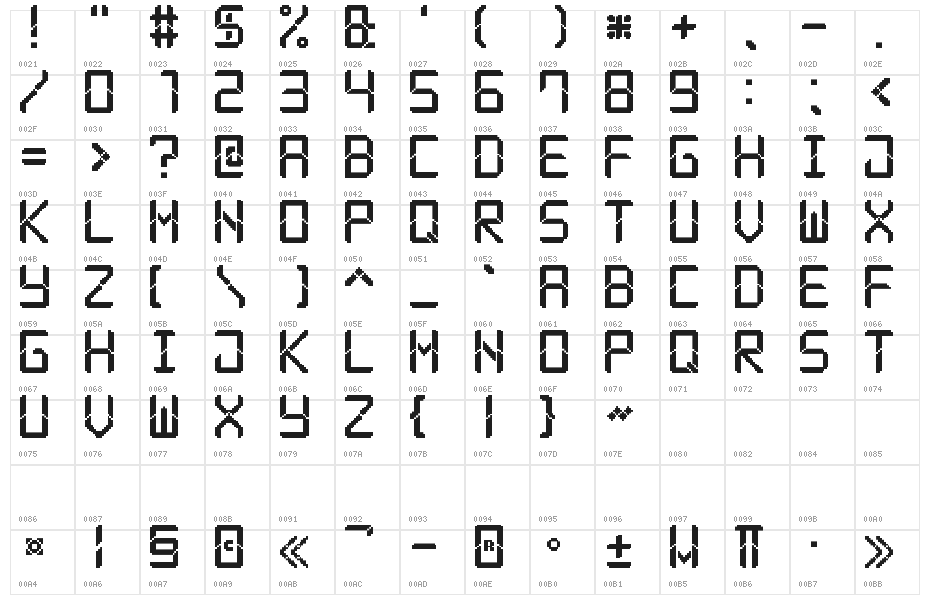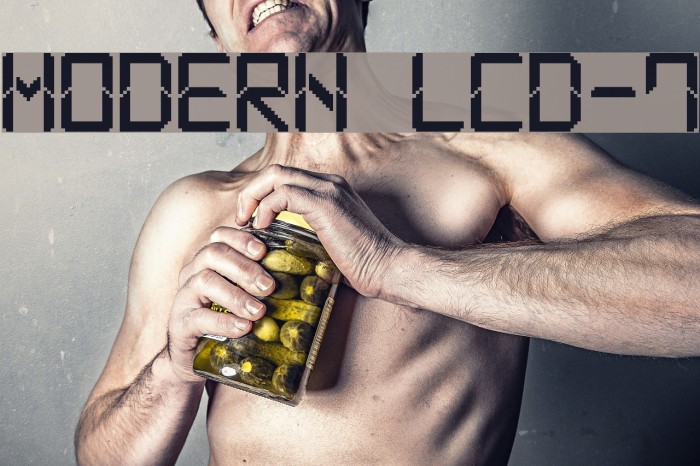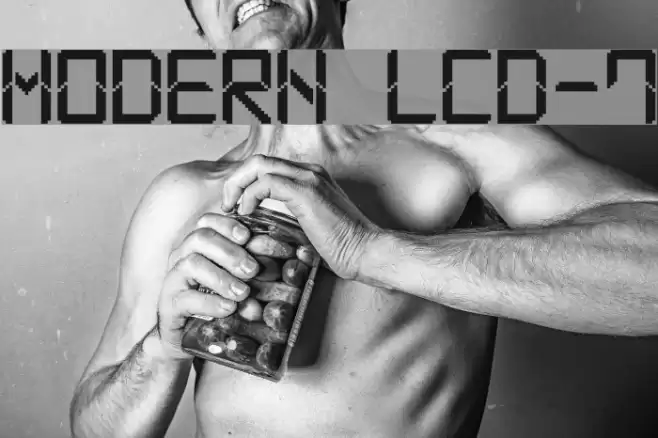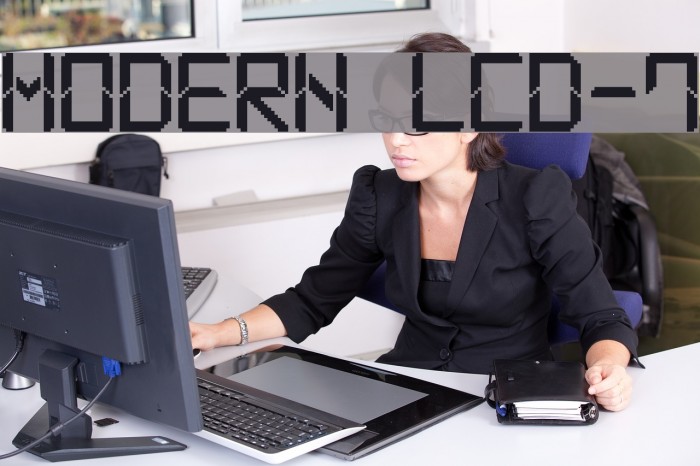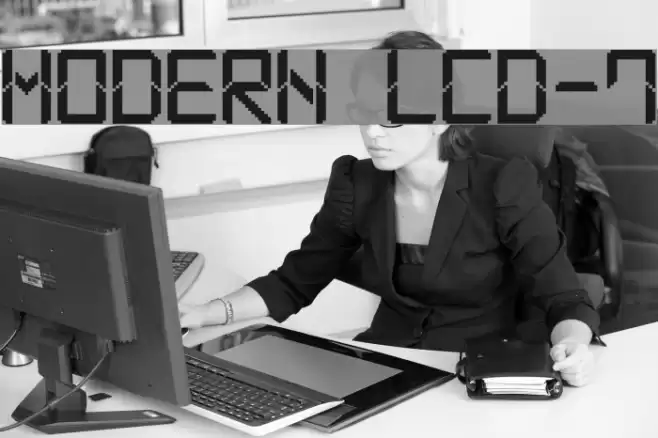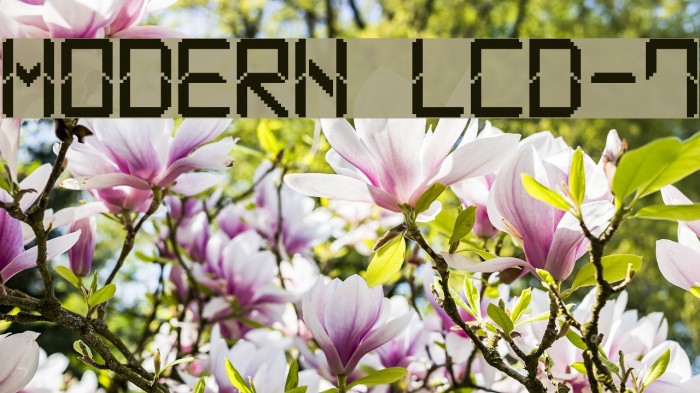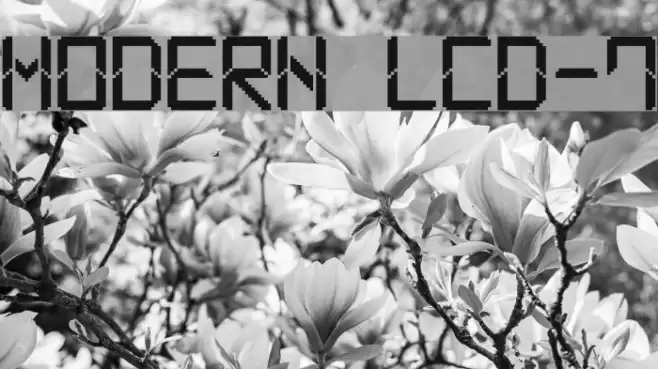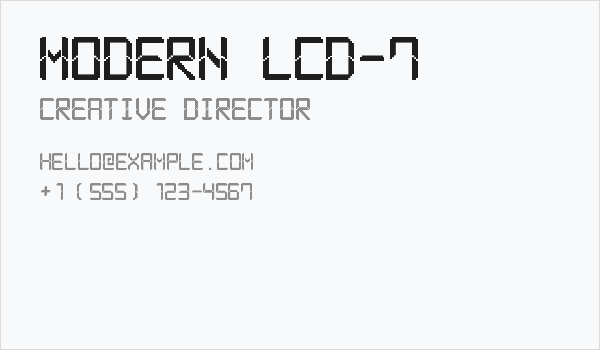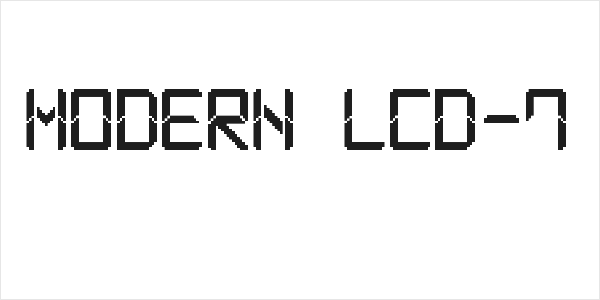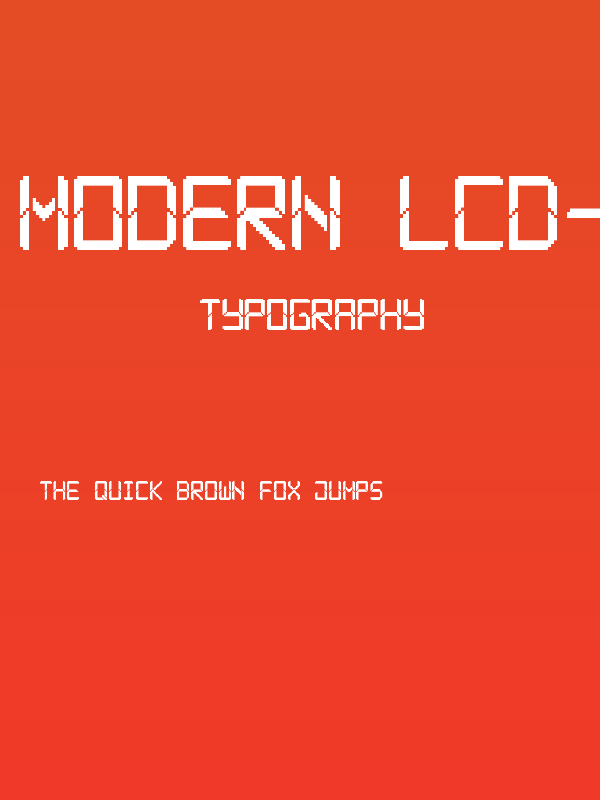
Modern LCD-7 Font
Modern LCD-7 Description
This font features a digital, pixelated style reminiscent of old LCD displays. Each character is constructed with a grid-like pattern, creating a geometric and angular appearance. The uppercase and lowercase letters maintain a consistent height, emphasizing the uniformity typical of digital readouts. Numbers and special characters follow the same structured design, enhancing the cohesive look. The font's distinct, blocky form makes it ideal for projects that require a retro or tech-inspired aesthetic. Its clear and legible style ensures readability even at smaller sizes, making it versatile for various applications.
| Proposed Projects | Ideal for tech-themed designs, retro video games, digital clocks, and electronic device interfaces. |